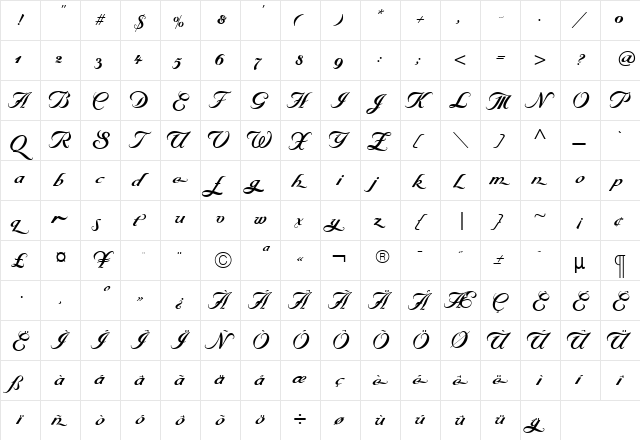
ByronBoldSwash Roman
Design Context for ByronBoldSwash Typeface
ByronBoldSwash flows with the natural rhythm of handwritten lettering, making it ideal for designs that call for warmth and personal expression. Its bold stroke weight gives it real presence on the page.
Font Pairing: Combine ByronBoldSwash with a simple geometric sans for maximum contrast — the tension between flowing curves and clean structure is a classic typographic pairing.
Pro Tip: Pair ByronBoldSwash with a clean sans-serif for supporting text. The contrast between fluid script and geometric structure creates an elegant typographic hierarchy.